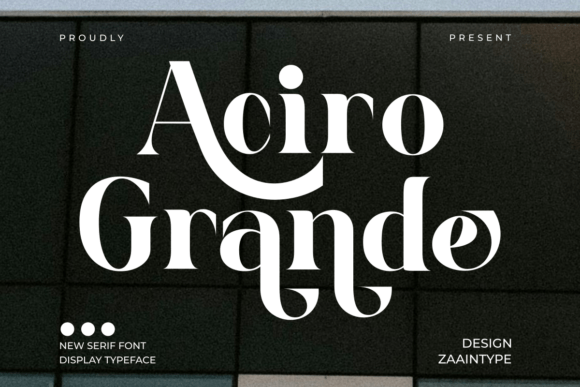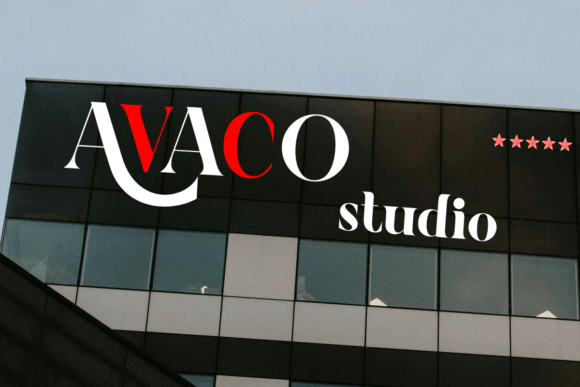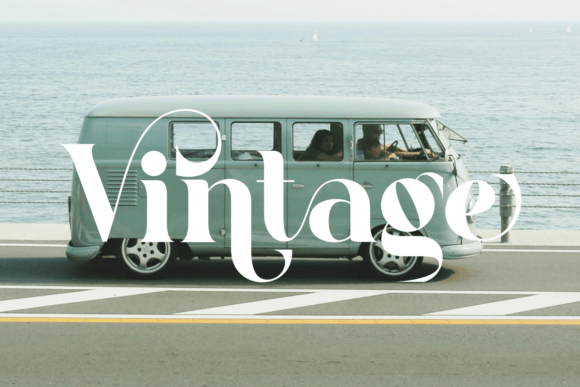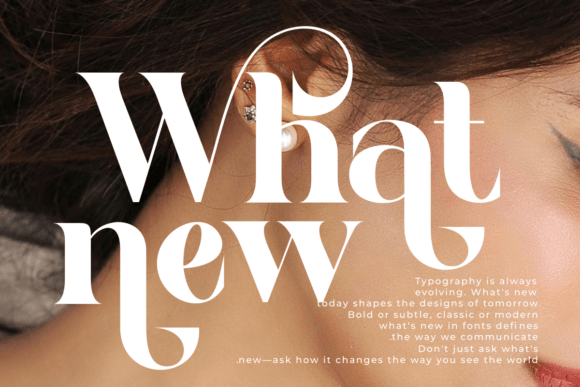
Aciro Grande Font: Elegant Serif for Modern Branding & Logo Design
About the Aciro Grande Font
Welcome to the world of Aciro Grande Font, a typeface that will inspire your next great project. Aciro Grande is an elegant serif font that blends classic luxury with a modern touch. Available in two styles:
Regular – Bold, strong, and highly readable, perfect for headlines and body text.
Oblique – Subtly slanted, dynamic, and expressive, ideal for accents and standout designs.
With a balance of elegance and versatility, Aciro Grande enhances your visual identity in branding, editorial, and premium design projects
Aciro Grande excels in headline treatments, logos, and short-form text within branding materials and packaging design. Its elegant serif forms command attention without overwhelming the viewer. However, its strong stroke weight makes it less suitable for extended body copy or UI elements where high readability at smaller sizes is crucial.
The Regular style pairs well with clean sans-serif fonts like Open Sans or Lato for a contemporary feel, or with a geometric sans-serif such as Montserrat for a more modern and structured look. The Oblique style can add a touch of dynamism when paired with a simple script font like Great Vibes for invitations or branding with a vintage touch.
Aciro Grande projects a sophisticated and confident personality, lending itself to brands emphasizing quality, luxury, or heritage. Avoid using it for projects requiring a playful or informal tone.
Aciro Grande Font Usage Examples
Aciro Grande Font Example